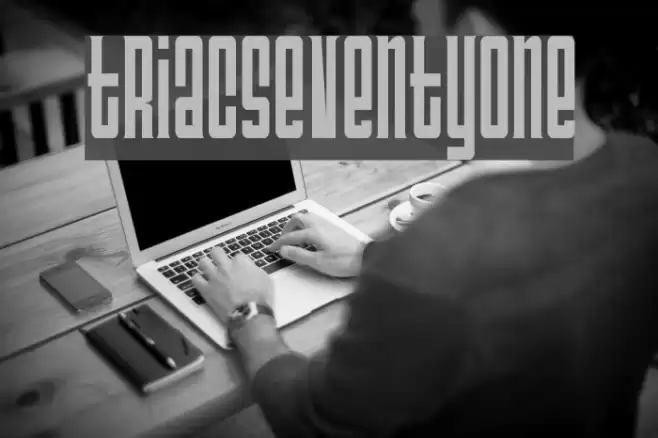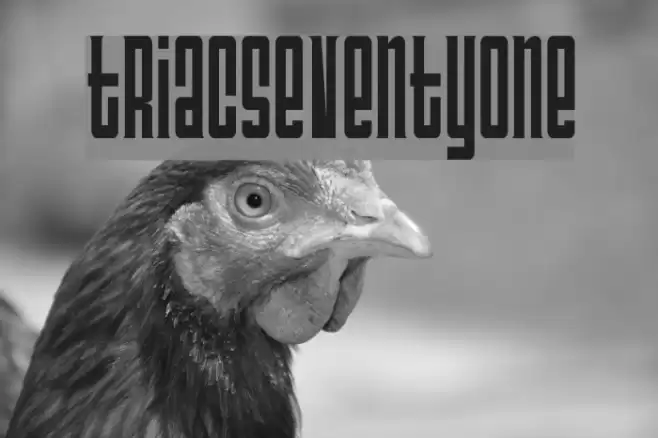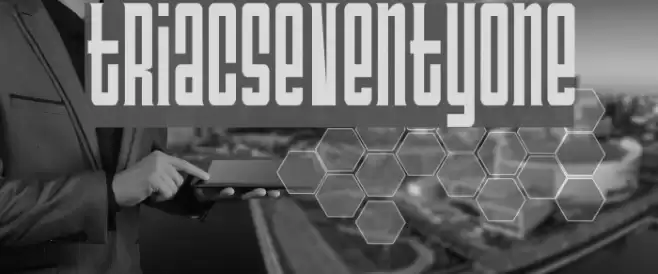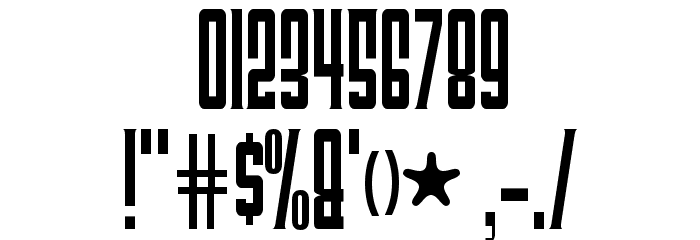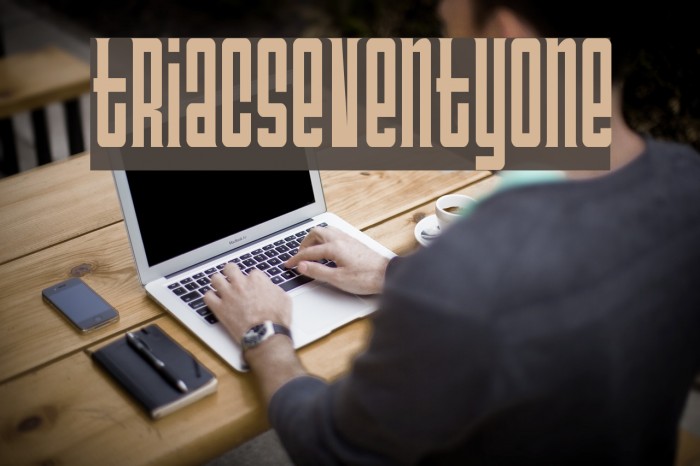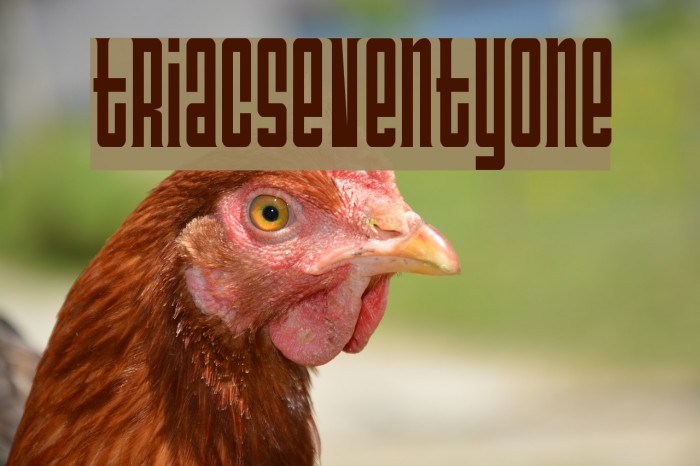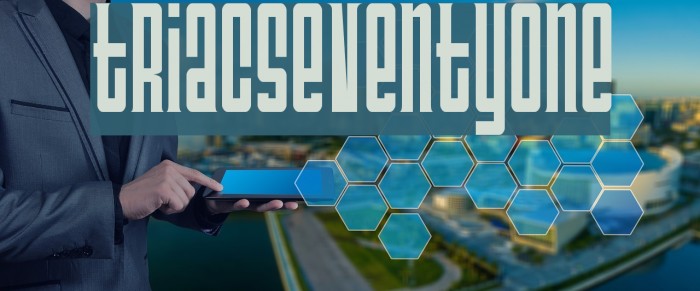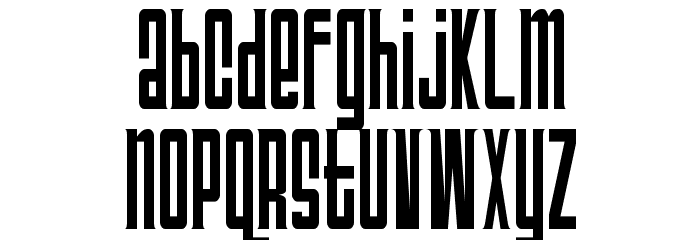
TriacSeventyone Font
TriacSeventyone Description
This font features a bold and condensed style with a strong vertical emphasis, creating a striking and impactful appearance. The characters are tall and narrow, with minimal spacing between them, enhancing the condensed look. The uppercase and lowercase letters maintain a consistent height, contributing to a uniform and cohesive design. The numbers and special characters follow the same stylistic approach, ensuring a seamless integration across different text elements. The overall design is modern and assertive, making it suitable for attention-grabbing headlines and titles.
A bold, condensed font with a strong vertical emphasis and minimal spacing from Futuristic fonts.
- Proposed Projects: Ideal for posters, headlines, branding, and any project requiring a bold, impactful typeface.
- Character Spacing: Tight